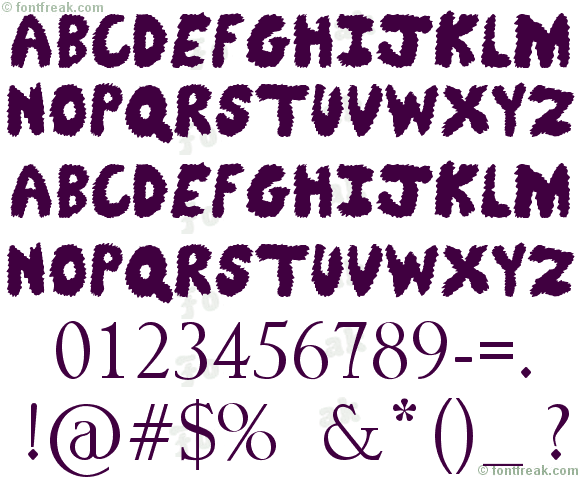
Fuzzy Bear
Fuzzy Bear, designed by Jonathan S. Harris in 2012, is a captivating display font that falls into the decorative category. This unique typeface features a playful and whimsical style, characterized by its fuzzy, irregular edges that mimic the softness of fur. The stroke weight is bold, lending a strong presence to each letter, while the contrast remains subtle, ensuring readability without compromising its artistic flair. The letters are spaced comfortably, allowing for easy legibility and a friendly appearance that invites engagement.
The Fuzzy Bear font is versatile and can be effectively used in a variety of creative projects. It is particularly well-suited for children's book covers, where its playful aesthetic can capture the imagination of young readers. Additionally, this font shines in branding for cozy cafés or ice cream shops, where the fun and inviting nature of the typeface can enhance the overall vibe. It also works wonderfully for promotional materials for family-oriented events, such as fun fairs or community gatherings. Furthermore, the Fuzzy Bear font can add a distinctive touch to merchandise designs, such as t-shirts or tote bags, appealing to those looking for something unique and eye-catching.
Target audiences for the Fuzzy Bear font include graphic designers seeking to infuse a sense of warmth and friendliness into their projects, small business owners looking to create memorable branding, and content creators aiming to capture attention with playful typography.
What sets the Fuzzy Bear font apart is its ability to balance fun with functionality. Its distinctive fuzzy edges create a unique visual identity, making it perfect for projects where a lighthearted touch is desired. With Fuzzy Bear font free download available, you can easily incorporate this charming typeface into your creative endeavors, ensuring your designs stand out in a crowded market.